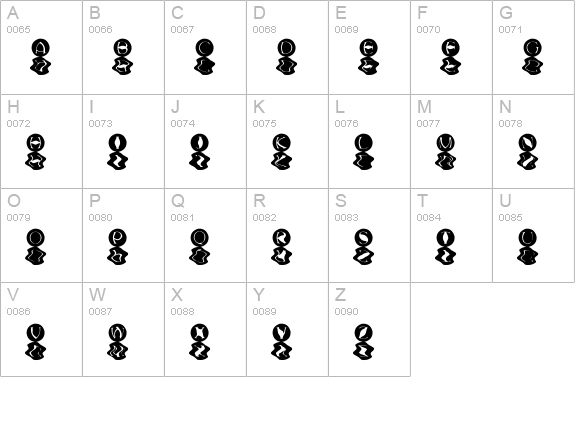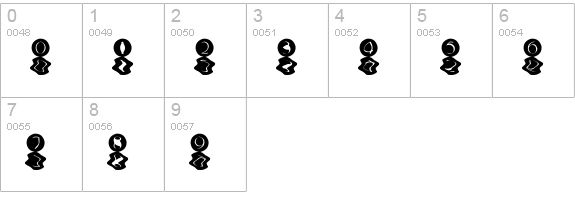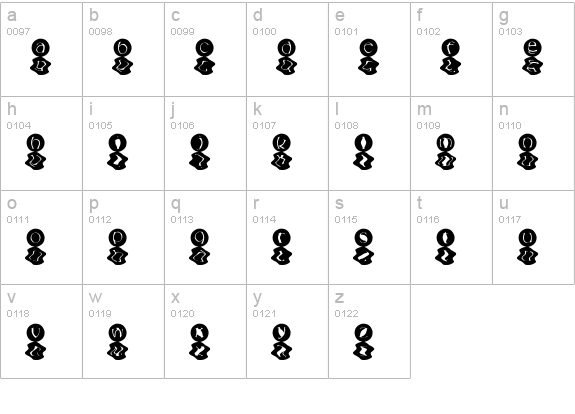
mashy Bong & Gossip Font Details
Introducing the captivating and trendy Mashy Bong & Gossip font, a delightful fusion of playfulness and elegance. This font is the perfect choice for adding a touch of whimsy and charm to your creative projects. With its unique combination of rounded edges and bold lines, Mashy Bong & Gossip font captures attention and creates a memorable visual experience. Whether you're designing eye-catching logos, branding materials, or social media graphics, this font will effortlessly elevate your designs to new heights. Its versatility allows it to shine in both digital and print media, making it a go-to choice for designers across various industries. What sets Mashy Bong & Gossip font apart is not only its stylish aesthetics but also its availability as a free download. That's right! You can freely access this captivating font at FontsMarket.com. This generous offer allows you to unleash your creativity without any constraints, making it an ideal choice for designers on a budget. With Mashy Bong & Gossip font, you can effortlessly create stunning typography that stands out from the crowd. The carefully crafted letterforms and attention to detail ensure legibility and readability across various sizes and mediums. This font is truly a game-changer for anyone seeking to make a bold statement with their designs. Don't miss out on the opportunity to add Mashy Bong & Gossip font to your font library. Download it for free today at FontsMarket.com and let your creativity soar to new heights. Whether you're a professional designer or a passionate hobbyist, this font is sure to become an invaluable asset in your creative toolkit. Embrace the free-spirited charm of Mashy Bong & Gossip font and unlock a world of endless design possibilities.